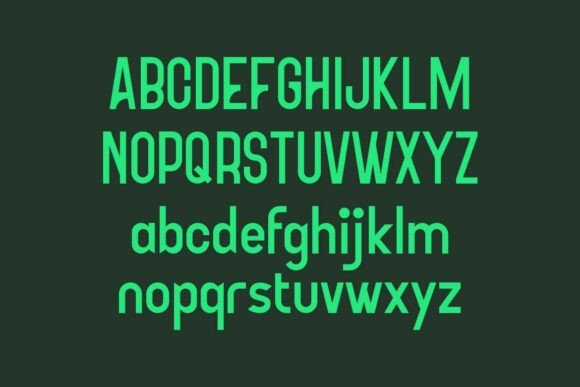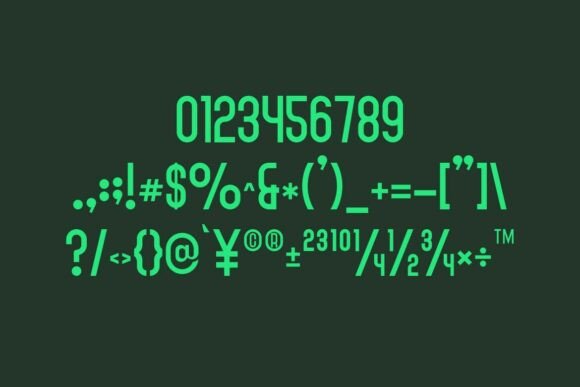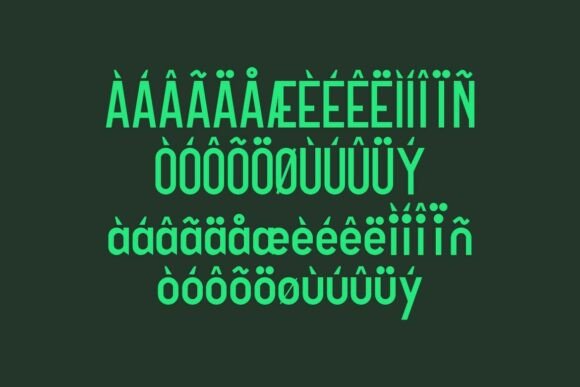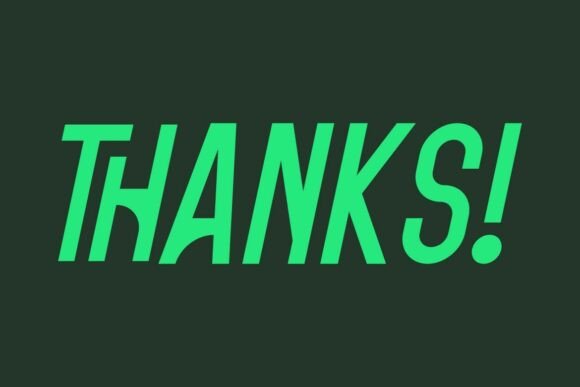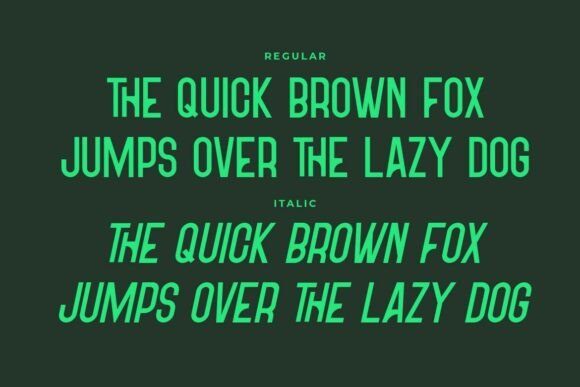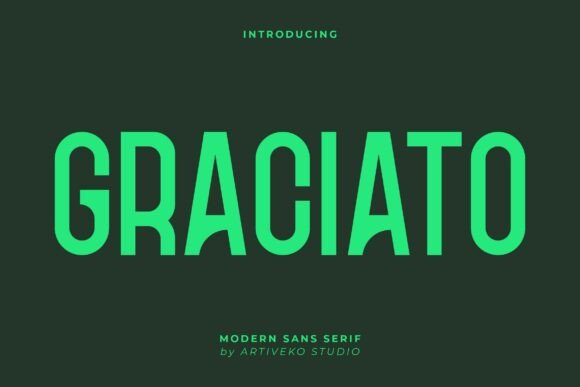
Introducing Graciato Font: Elevate Your Design with Clean Elegance
In the world of typography, a well-crafted font can make all the difference in communicating your message with clarity and style. Graciato Font is a stunning sans serif font that embodies the perfect blend of modern sophistication and clean elegance, making it an ideal choice for designers and crafters looking to elevate their projects.
Design Characteristics of Graciato Font
Graciato Font boasts smooth curves, geometric proportions, and well-balanced letterforms that work in harmony to deliver exceptional clarity and readability. Its clean and elegant design makes it versatile enough to be used across a wide range of applications, from branding and editorial layouts to packaging, social media graphics, and website design.
Key Features of Graciato Font
- Clean and Elegant Design: Graciato’s sans serif design ensures that your typography looks modern and sophisticated, perfect for projects that demand a high level of professionalism.
- Smooth Curves and Geometric Proportions: The font’s smooth curves and geometric proportions create a visually appealing aesthetic that is both harmonious and engaging.
- Well-Balanced Letterforms: Each letterform in Graciato Font is carefully crafted to ensure excellent readability and legibility, making it easy for your audience to engage with your content.
- Versatility: Whether you’re working on branding, editorial layouts, packaging, social media graphics, or website design, Graciato Font adapts seamlessly to different contexts and mediums.
Applications of Graciato Font
Graciato Font’s versatility makes it an excellent choice for a wide range of design projects. Here are some examples of how you can use this beautiful font:
- Branding: Establish a strong brand identity with Graciato Font’s clean and elegant design, perfect for logos, business cards, and brand guidelines.
- Editorial Layouts: Create visually stunning editorial layouts for magazines, newspapers, and digital publications that require a high level of readability and style.
- Packaging: Elevate your packaging design with Graciato Font’s modern sophistication, making your products stand out on store shelves.
- Social Media Graphics: Create engaging social media graphics that capture your audience’s attention with Graciato Font’s clean and elegant design.
- Website Design: Enhance your website’s typography with Graciato Font, ensuring a seamless user experience across different devices and screen sizes.
Why Choose Graciato Font?
With Graciato Font, you can expect:
- Exceptional Readability: Graciato Font’s well-balanced letterforms and clean design ensure that your content is easy to read and understand.
- Modern Sophistication: Add a touch of modern elegance to your designs with Graciato Font’s smooth curves and geometric proportions.
- Versatility: Use Graciato Font across different design projects and applications, from print to digital.
- Professionalism: Elevate your designs with a font that exudes professionalism and attention to detail.
Graciato Font is a powerful tool for designers and crafters looking to elevate their typography with clean elegance and modern sophistication. Its versatility, exceptional readability, and beautiful design make it an excellent choice for a wide range of design projects. Whether you’re working on branding, editorial layouts, packaging, social media graphics, or website design, Graciato Font is sure to deliver exceptional results.